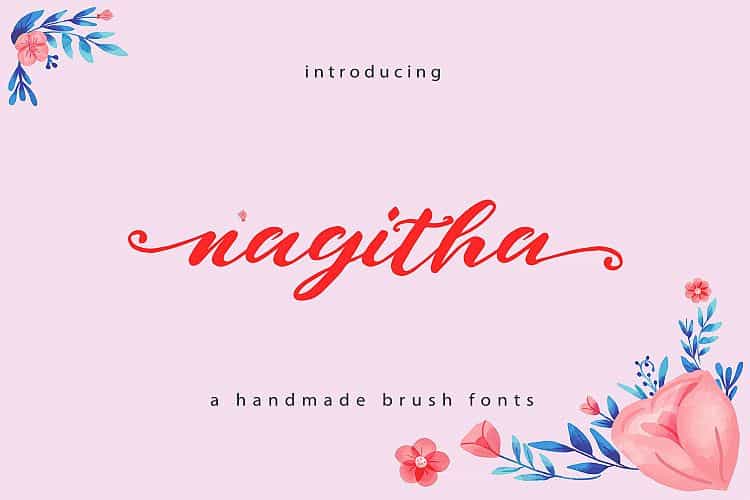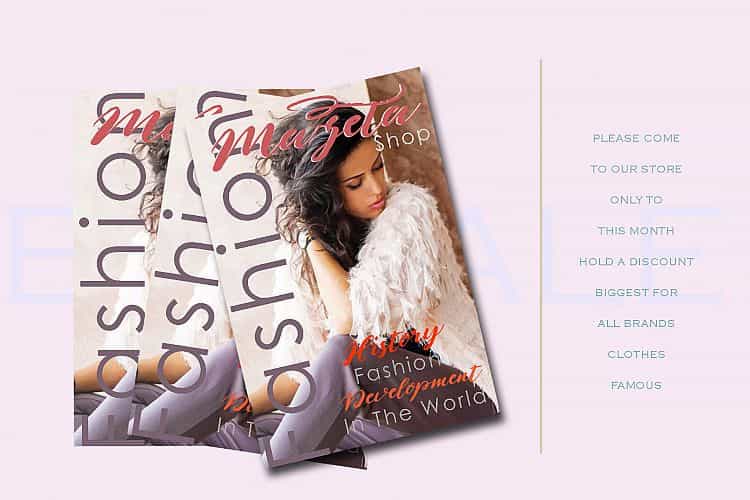
Naghita Brush Font is a handmade font style dance and then a life trail to have a Grungy brush and unique calligraphy form, a very natural and simple writing style. This font comes with 445 glyphs and will be the one you depend on, the one that will be updated according to your needs.